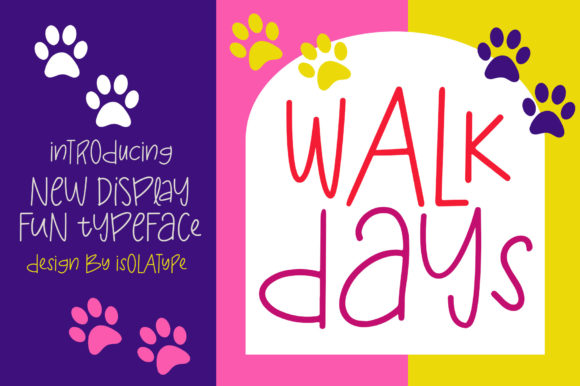
**Walk Days Font: The Cutest Font for Your Funniest Logos**
If you're looking for the perfect font to add a touch of whimsy to your next project, look no further than Walk Days Font! This adorable display font is perfect for creating funny logos, eye-catching posters, and cheerful social media posts.
But don't let its playful appearance fool you—Walk Days Font is also incredibly versatile. Its unique character set includes a variety of playful and imaginative glyphs, making it the perfect choice for adding a touch of personality to any project. Plus, it's fully scalable, so you can use it at any size without losing any of its charm.
**Why Choose Walk Days Font?**
* **It's Cute and Fun:** Walk Days Font is guaranteed to put a smile on your face with its playful and whimsical design. Its unique character set includes a variety of playful and imaginative glyphs, making it the perfect choice for adding a touch of personality to any project.
* **It's Versatile:** Walk Days Font is more than just a pretty face! It's also incredibly versatile, making it the perfect choice for a wide range of projects. Whether you're creating a funny logo, an eye-catching poster, or a cheerful social media post, Walk Days Font has got you covered.
* **It's Scalable:** Walk Days Font is fully scalable, so you can use it at any size without losing any of its charm. This makes it the perfect choice for projects of all sizes, from small social media posts to large-scale posters.
**Get Inspired by Walk Days Font Today!**